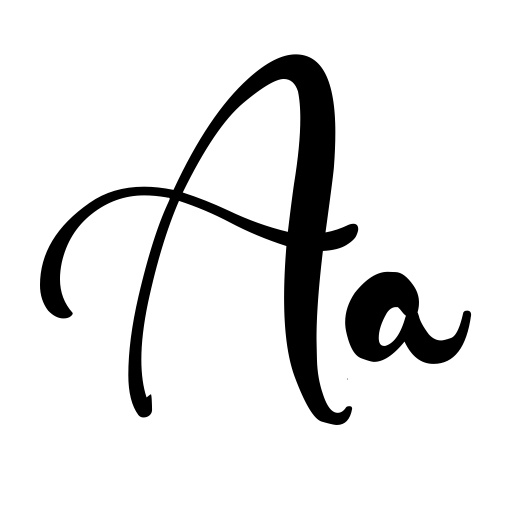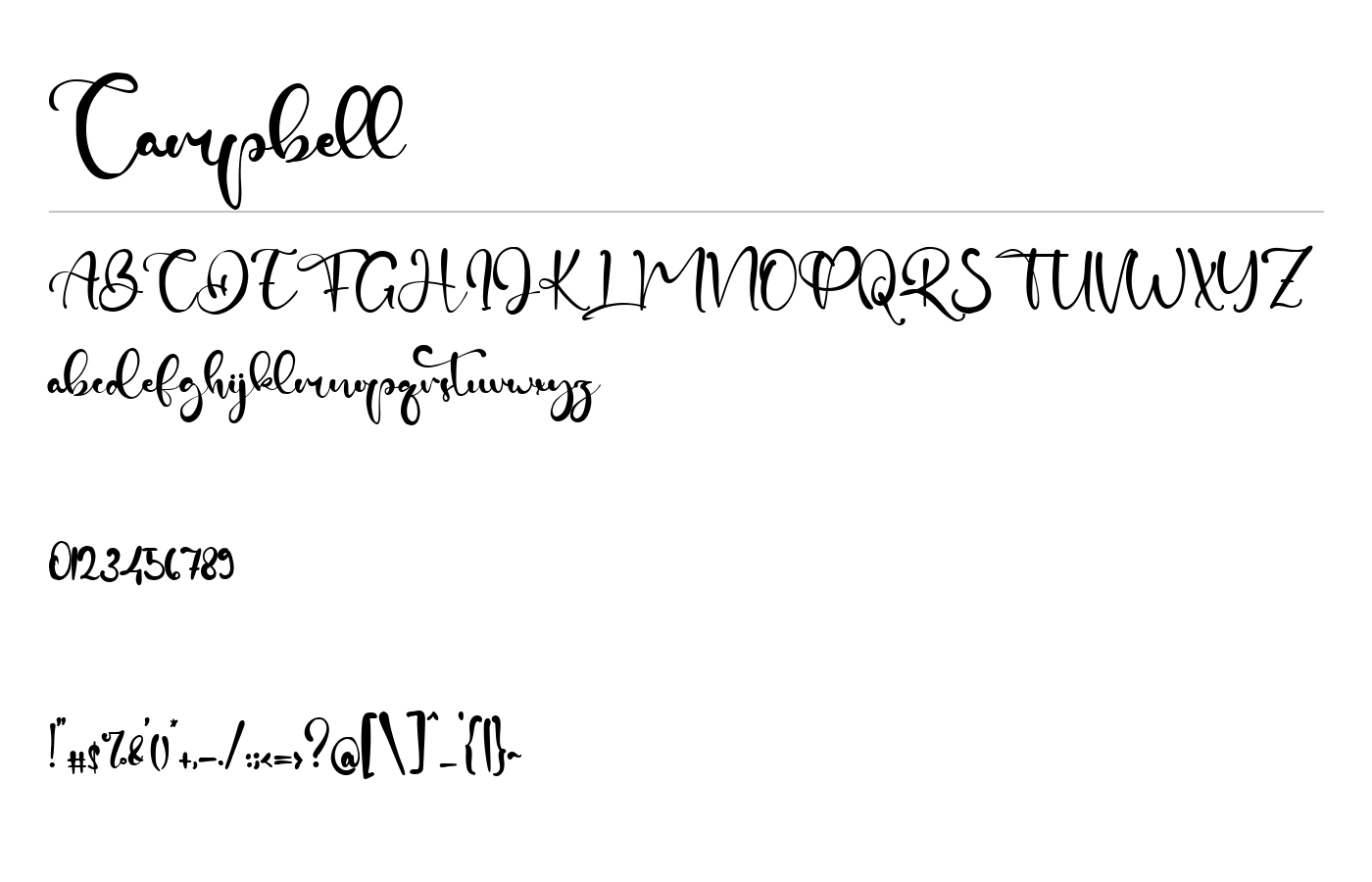
Campbell Font is an elegant and decorative script typeface with a lively and flowing style, characterized by its smooth, rounded strokes and playful swashes. Its casual yet refined appearance makes it ideal for brands and projects that want to evoke a sense of creativity, warmth, and personalized charm. This font shines in invitations, logos, fashion branding, and decorative headings where a stylish, handcrafted look is desired.
Campbell Font
About Campbell Font
| Font family | Campbell Font |
| Designer | Staircase Studio |